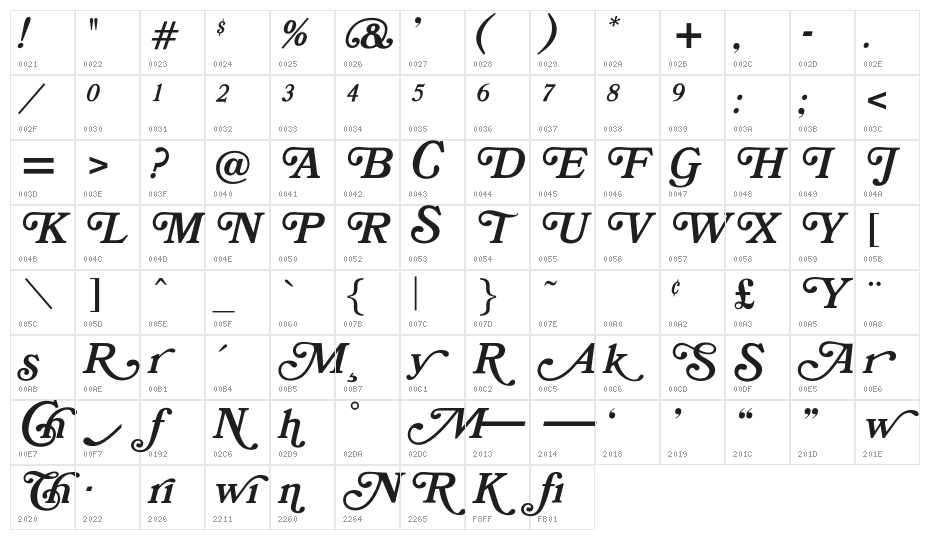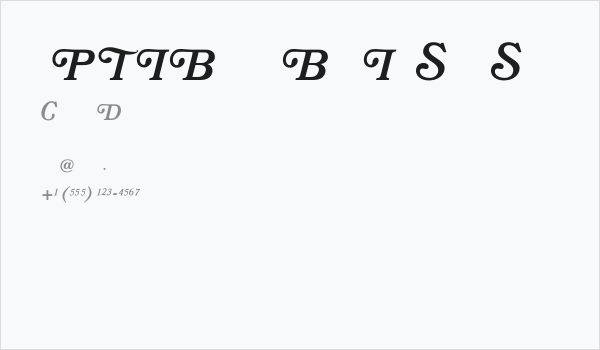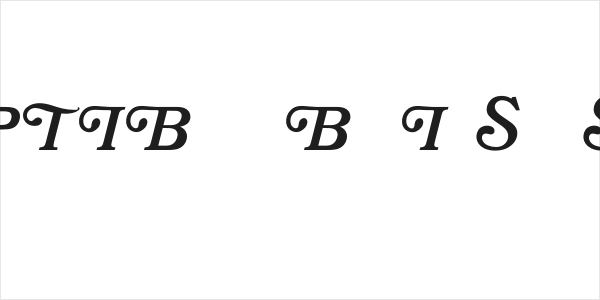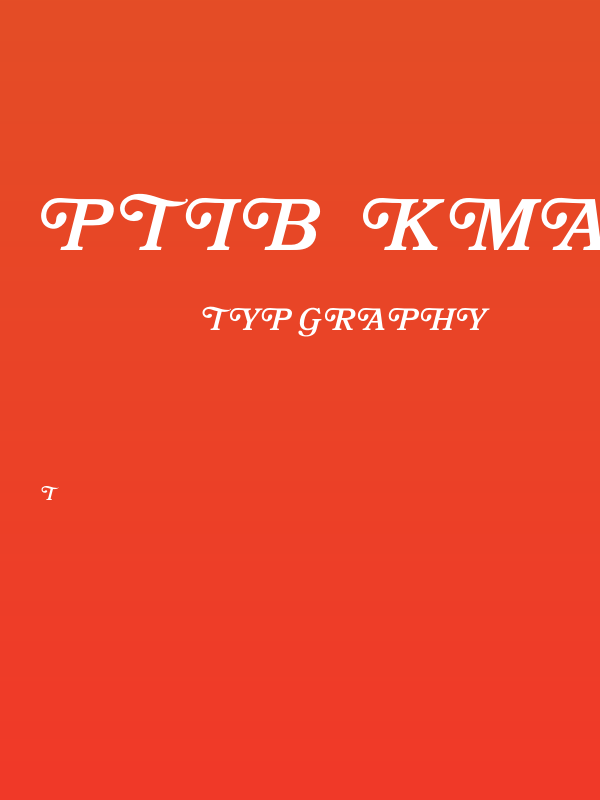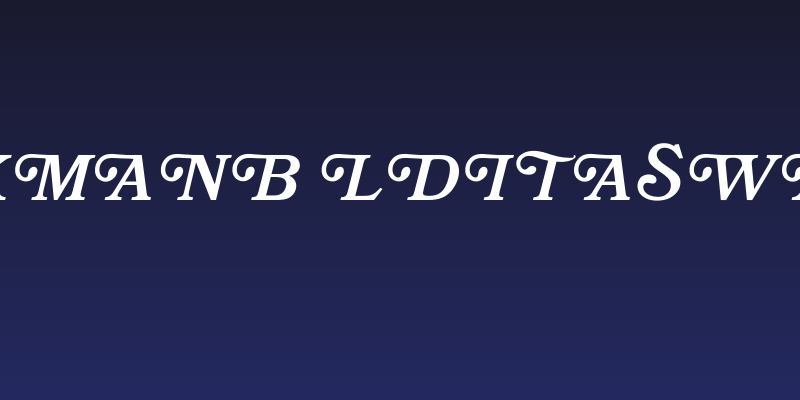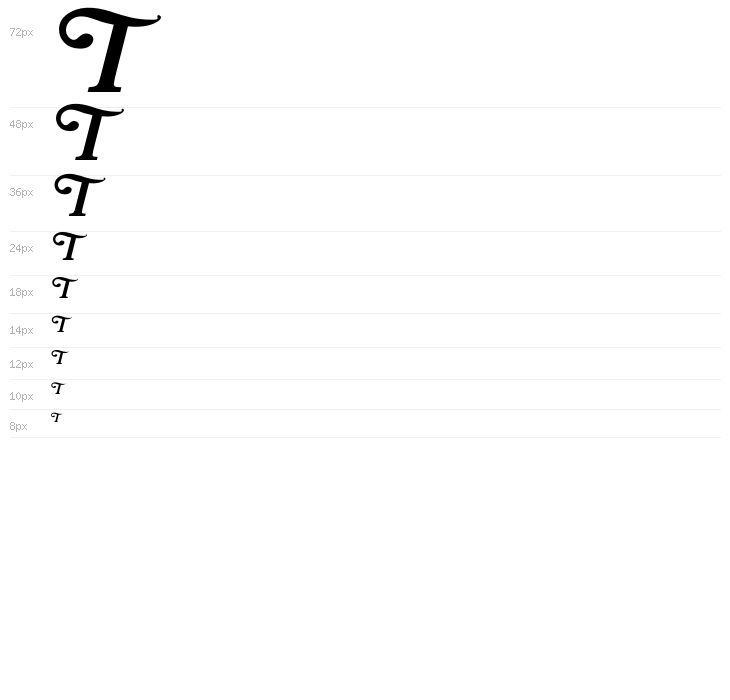
OPTIBookmanBoldItaSwashSup Font
This font features elegant, flowing swashes that give it a sophisticated and decorative appearance. The uppercase letters are adorned with intricate curls and flourishes, adding a touch of classic elegance. The lowercase letters maintain a consistent style, with smooth curves and a slightly italicized slant, enhancing the overall graceful look. The numerals are clear and bold, ensuring readability while maintaining the decorative theme. Special characters are designed with similar swashes, integrating seamlessly with the rest of the font. This font is ideal for projects that require a touch of elegance and sophistication.
| Proposed Projects | Ideal for wedding invitations, luxury branding, elegant signage, and decorative headlines. |